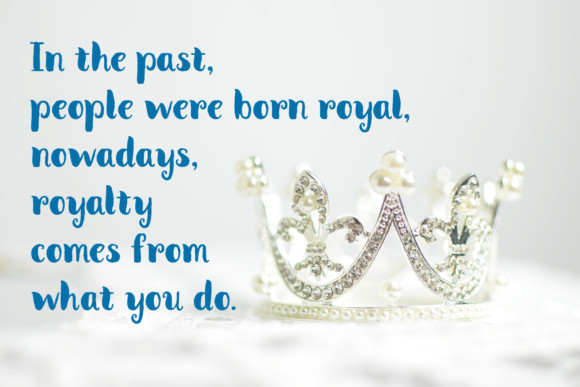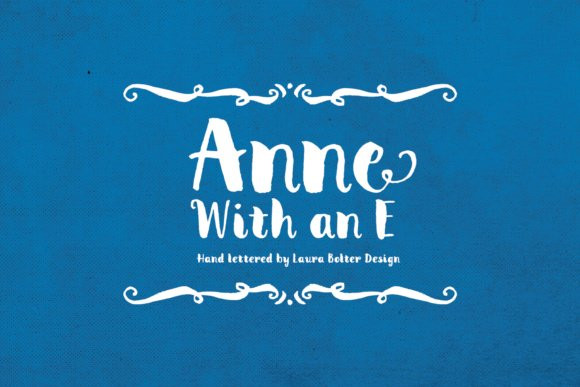
Anne with an E Font
Anne With an E is a new brushy, hand-lettered style with big thick’s and narrow thins. Anne With an E is named for the woman who gave me life. She always emphasized the inclusion of the “e” because she felt it was the royal way to spell it.